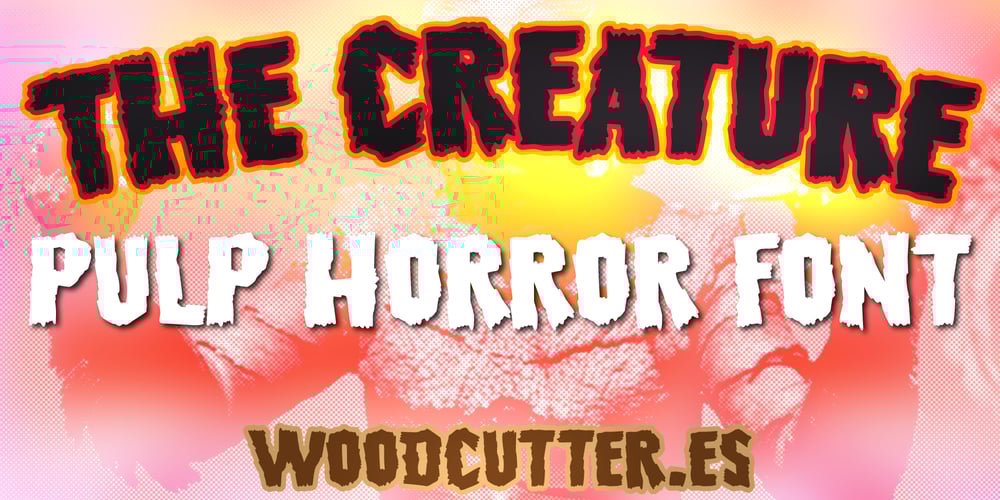
The Creature
The Creature font
The Creature Font Family was designed by Jordi Manero and published by Woodcutter. The Creature contains 1 styles and family package options. “The Creature” is an all-uppercase font with accents that captures the essence of pulp horror magazines and old fantasy movies. Its letters feature irregular and distorted outlines, as if hand-drawn, adding a haunting and retro look. This typeface evokes the atmosphere of classic horror cinema, making it perfect for posters, covers, or designs aiming to convey a nostalgic and mysterious vibe. Its unique aesthetic combines chaotic design with visually striking style, ideal for projects that need to stand out with a vintage and fantastical touch.